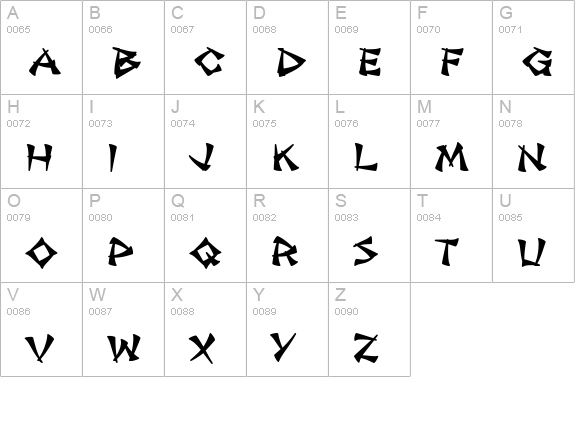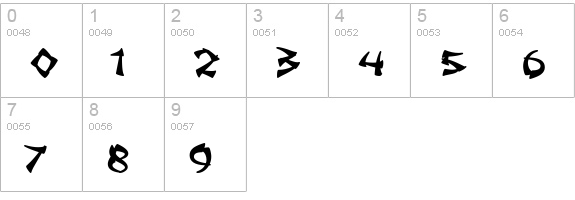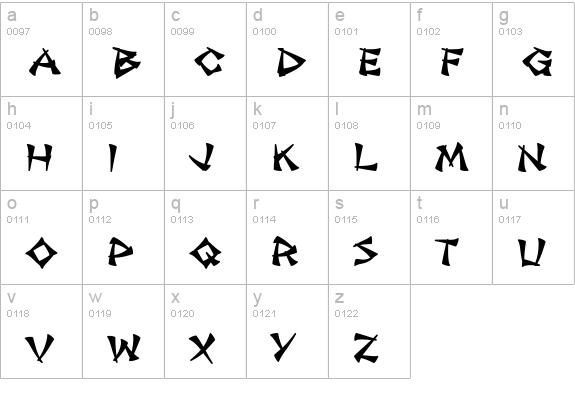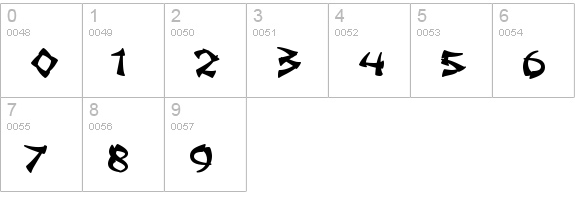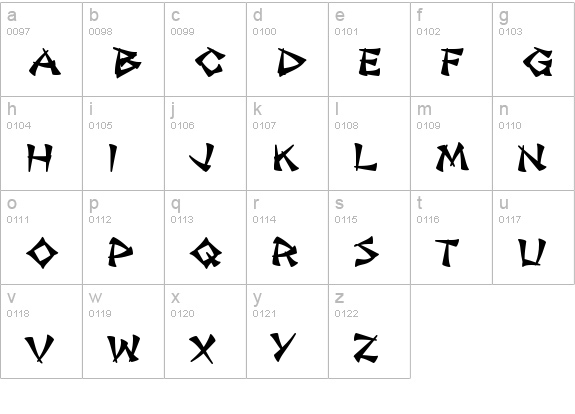
Jade Monkey BTN Black is a maximum-weight, dramatic variant in the Jade typeface family \xE2\x80\x94 well suited to maximum-impact headlines, posters, and packaging.
Introducing Jade Monkey BTN Black, a striking and bold font that captivates with its unique and eye-catching design. This magnificent typeface effortlessly combines elegance with a touch of playfulness, making it perfect for a variety of creative projects. With its strong and commanding presence, Jade Monkey BTN Black demands attention and adds a touch of sophistication to any design. Whether you're working on branding materials, posters, logos, or headlines, this font is sure to make a lasting impression. One of the best parts about Jade Monkey BTN Black is that it is freely available to download at FontsMarket.com. This means that you can enhance your projects with this stunning font without breaking the bank. Its versatility and ability to elevate any design make it a must-have for any designer or creative professional. Designed with precision and care, Jade Monkey BTN Black offers a wide range of uppercase and lowercase letters, numerals, punctuation marks, and special characters. Its clean lines and sharp edges give it a modern and contemporary feel, while still maintaining a timeless appeal. Whether you're looking to add a touch of elegance to your website, create visually captivating graphics, or make a statement with your printed materials, Jade Monkey BTN Black is the perfect choice. Its bold and powerful aesthetic will surely leave a lasting impression on your audience. Don't miss out on the opportunity to enhance your design projects with this remarkable font. Download Jade Monkey BTN Black for free at FontsMarket.com and let your creativity soar to new heights.